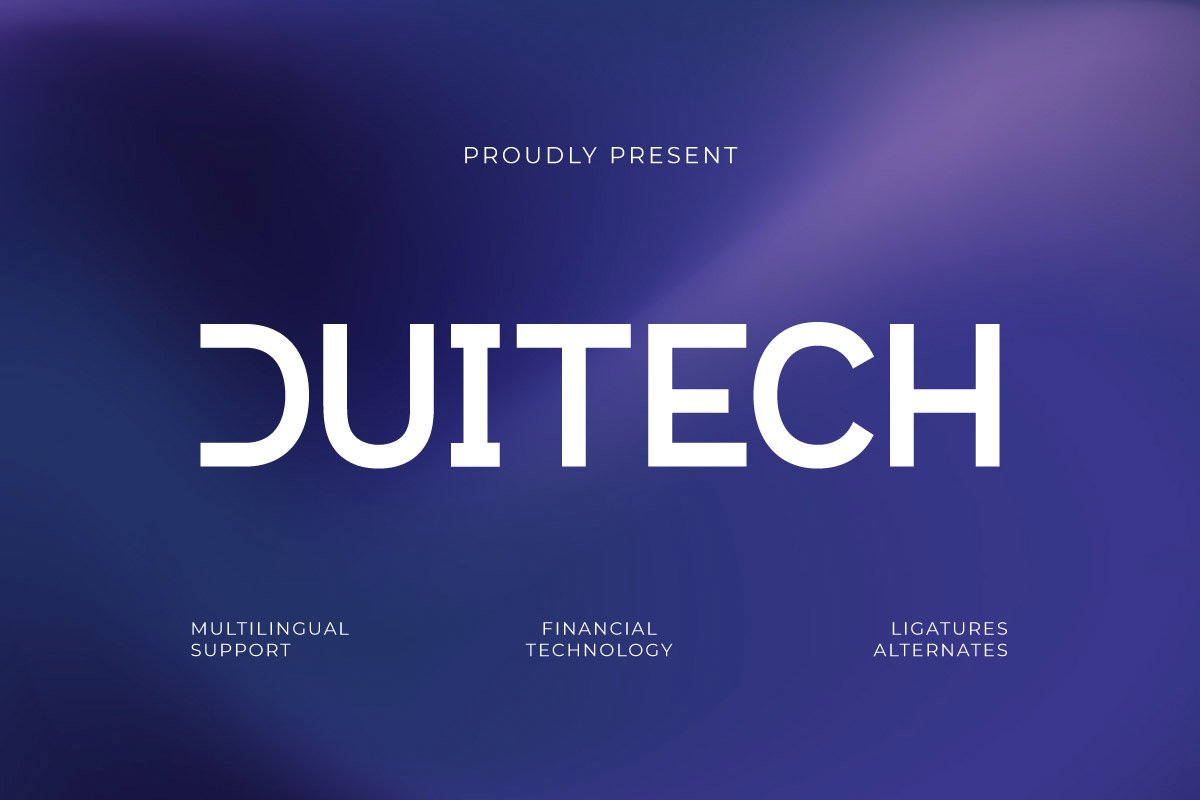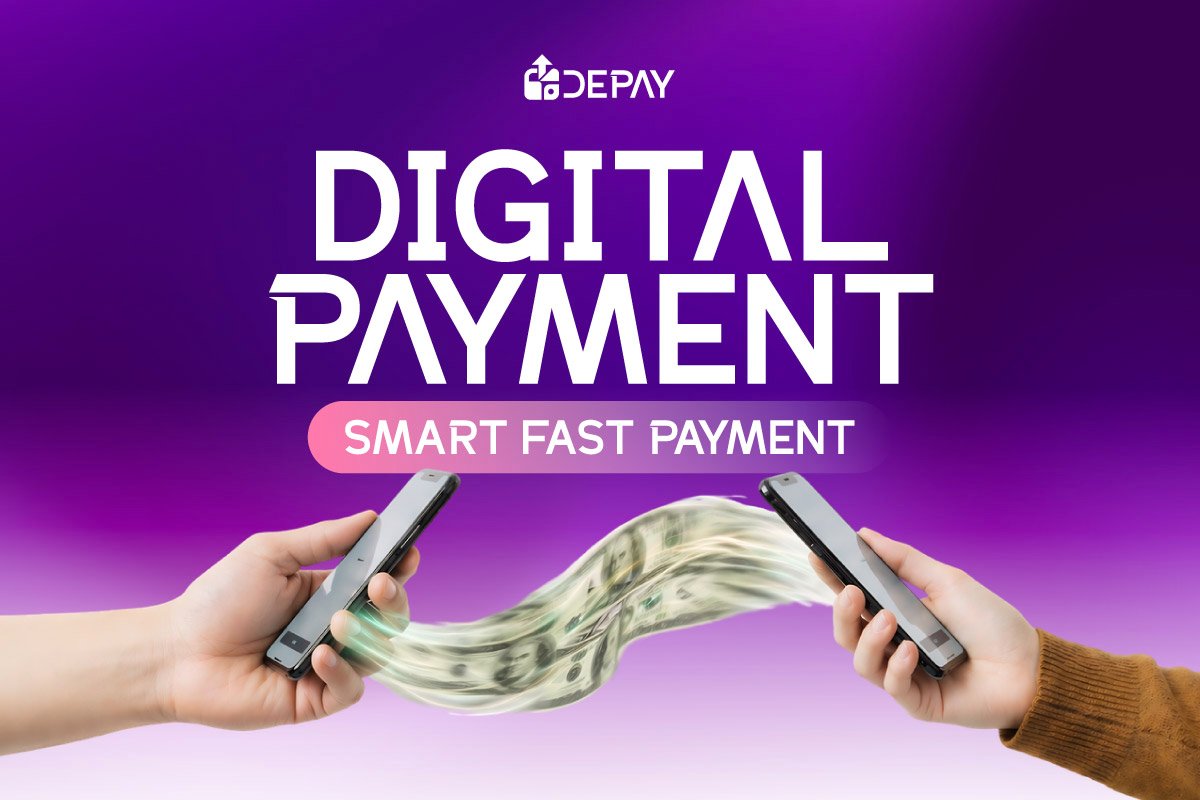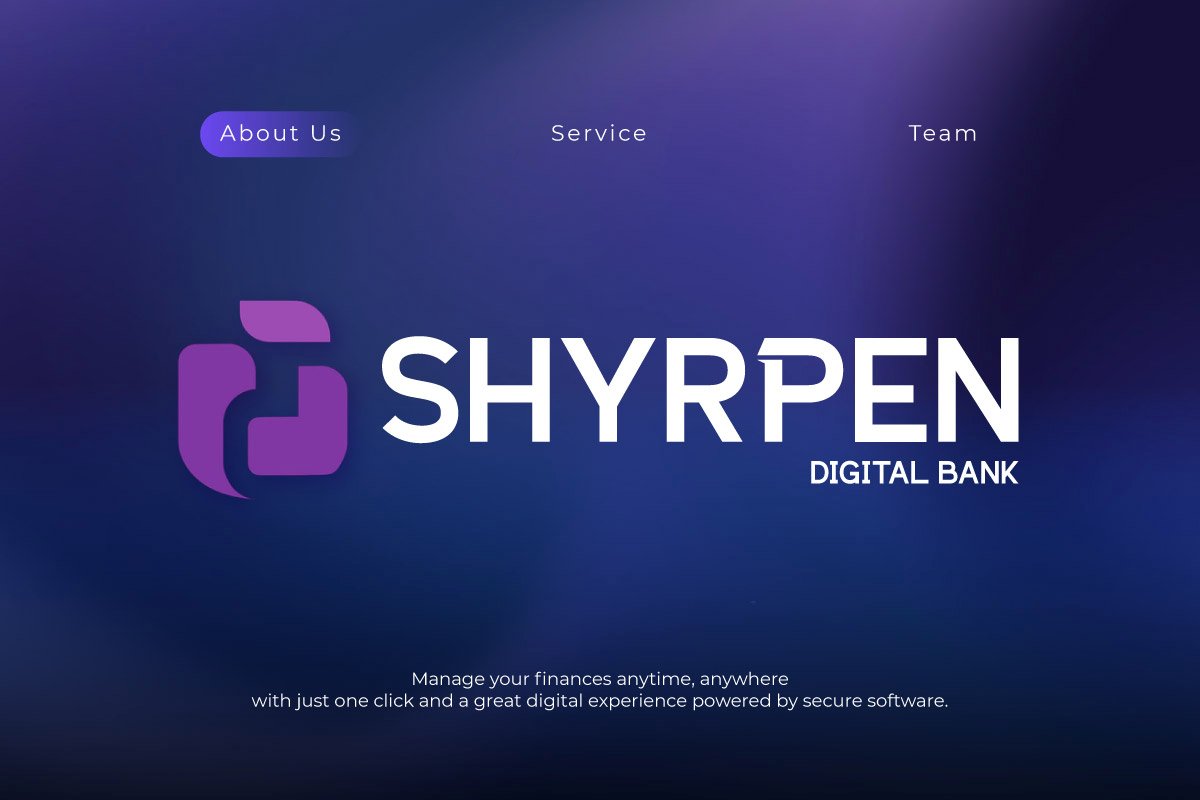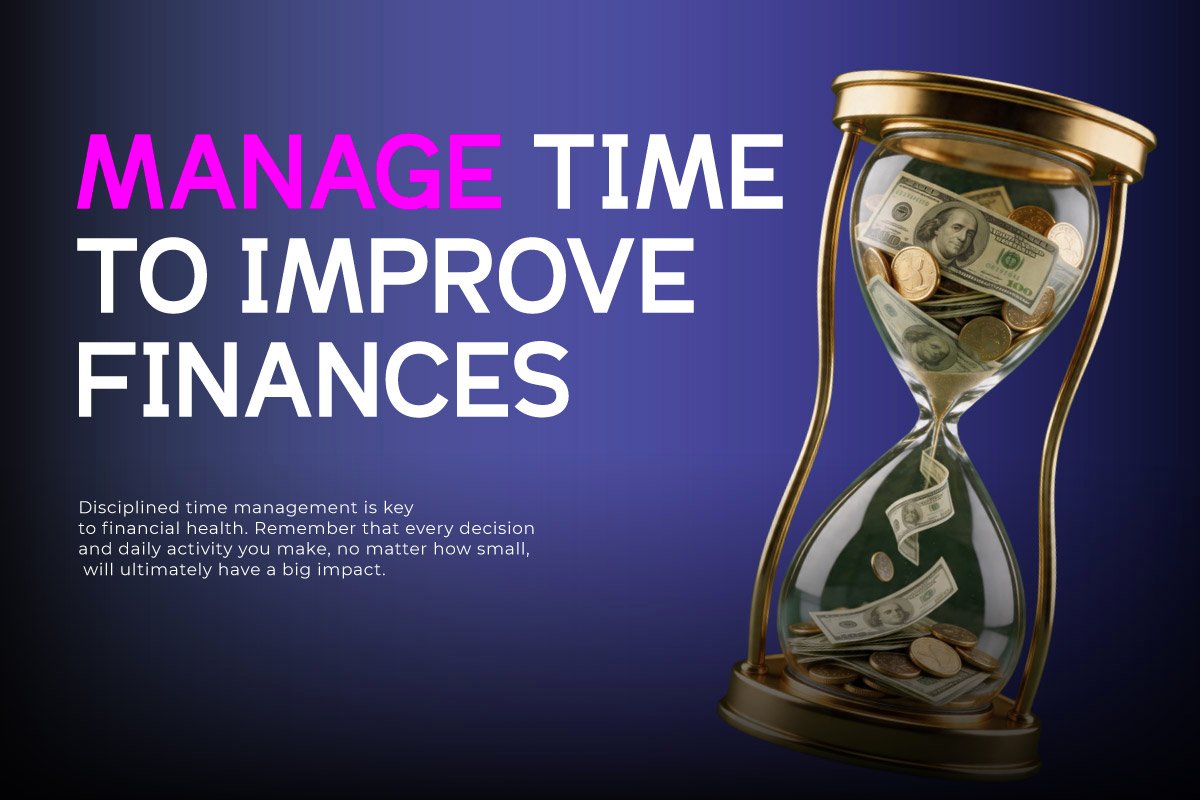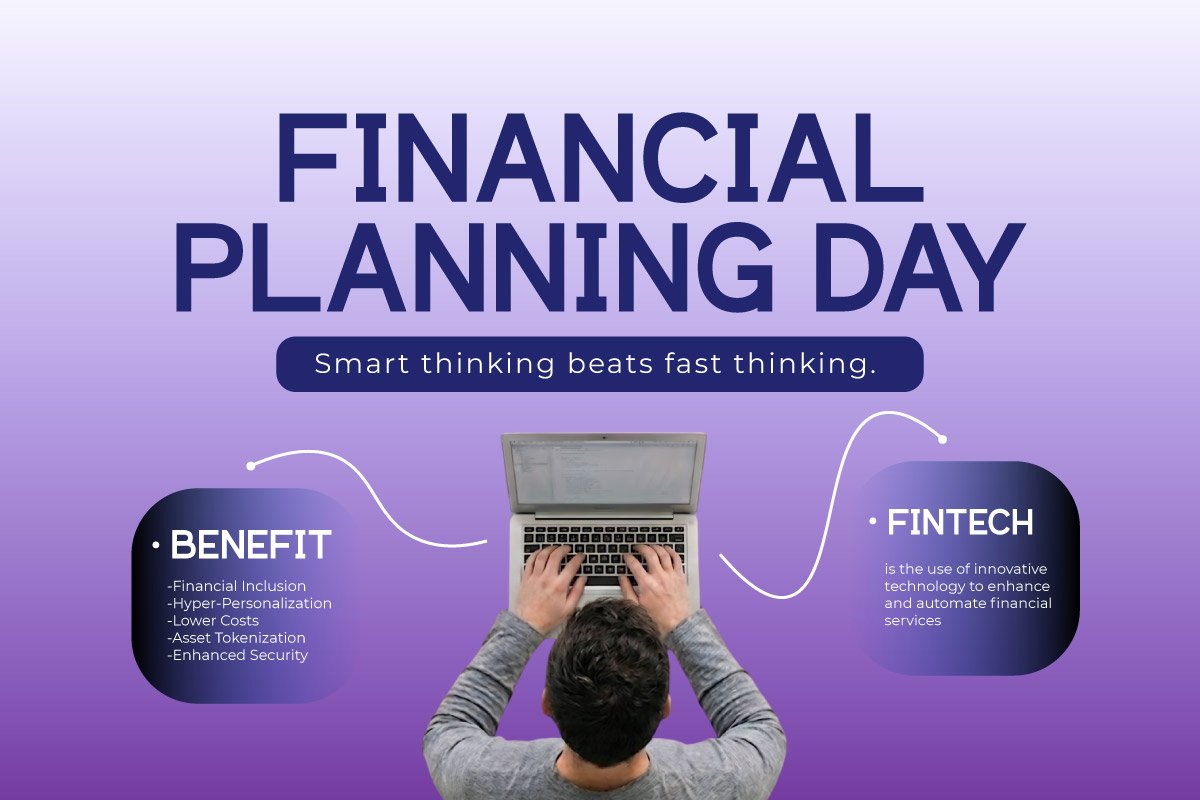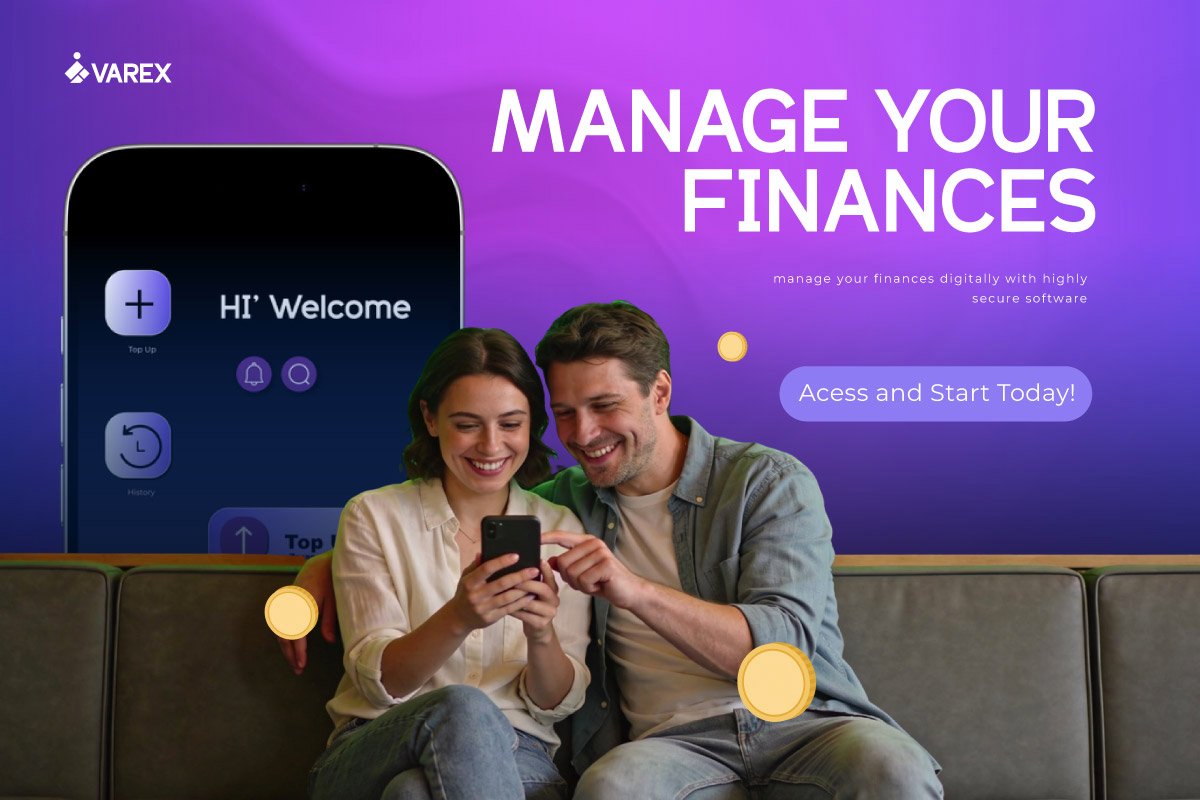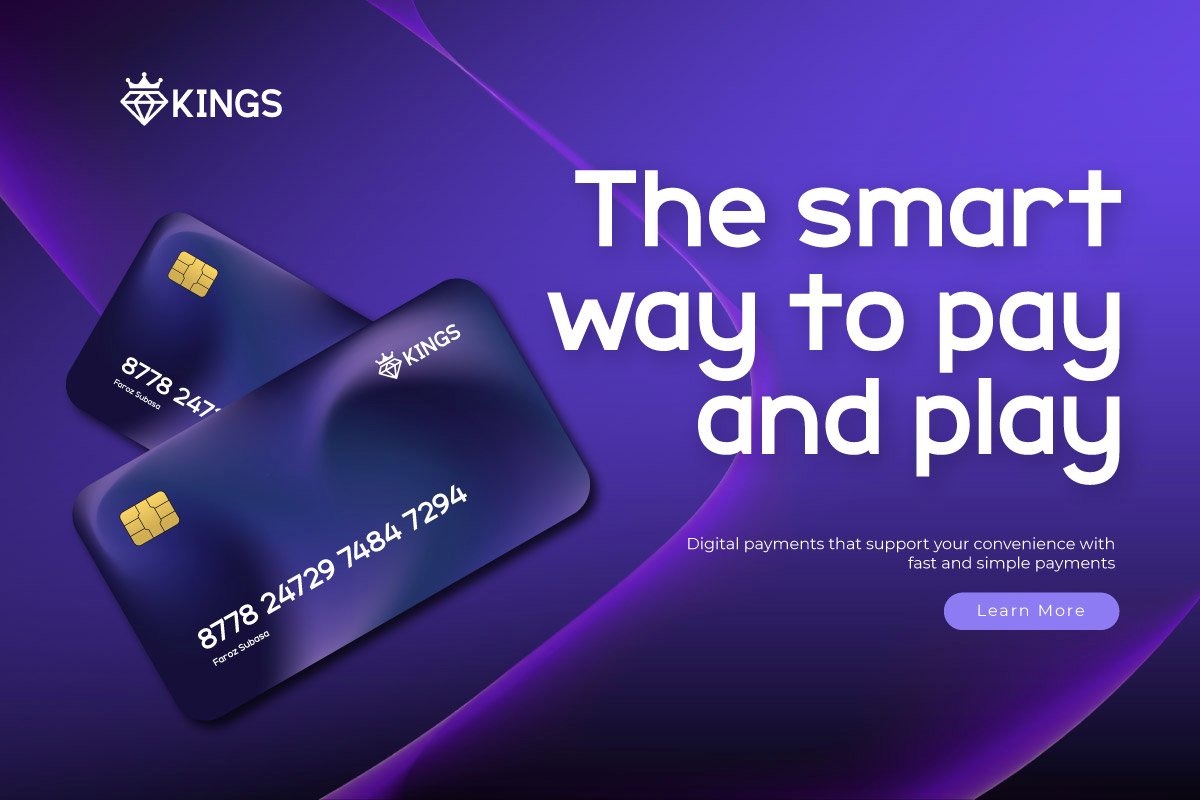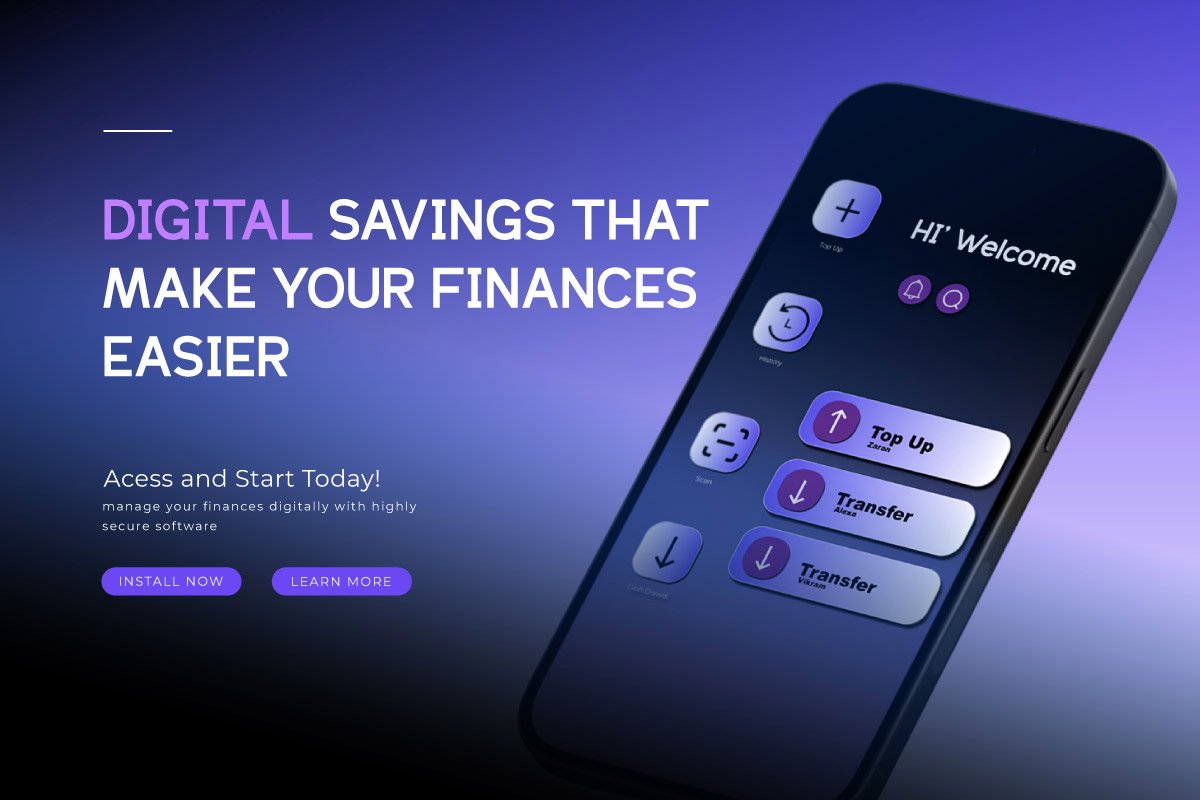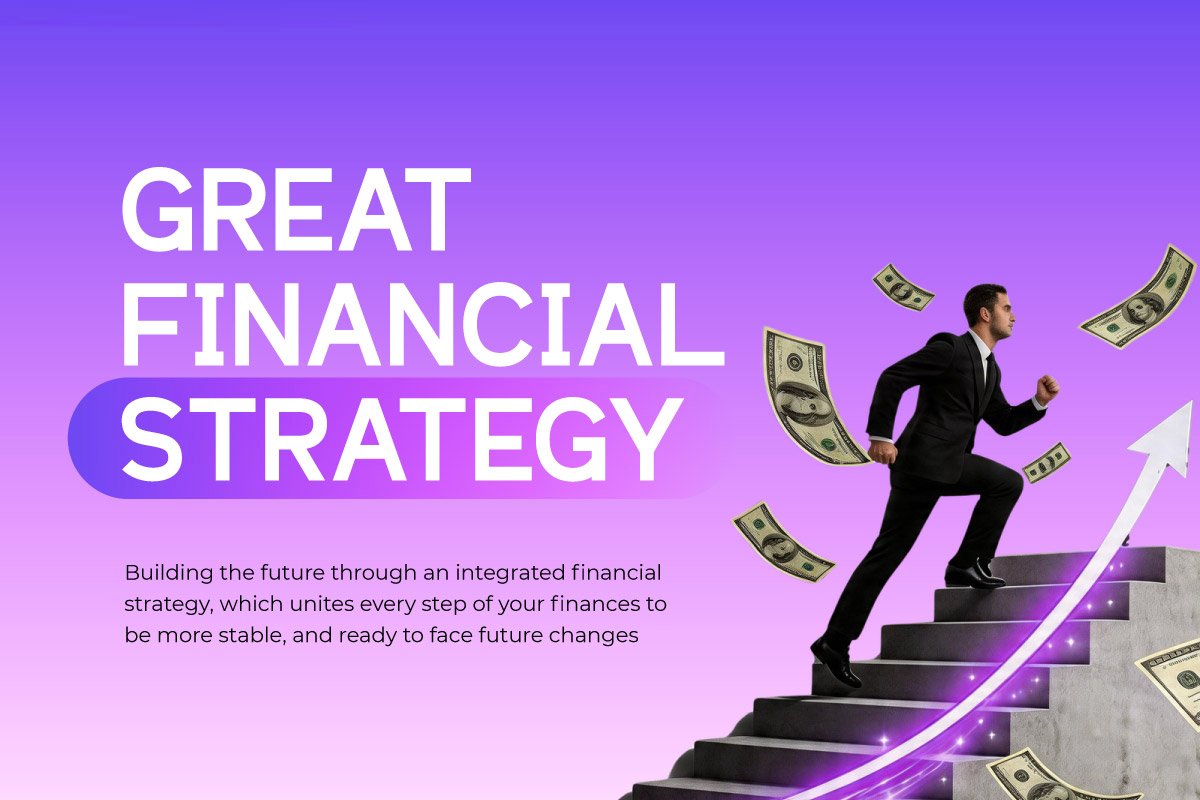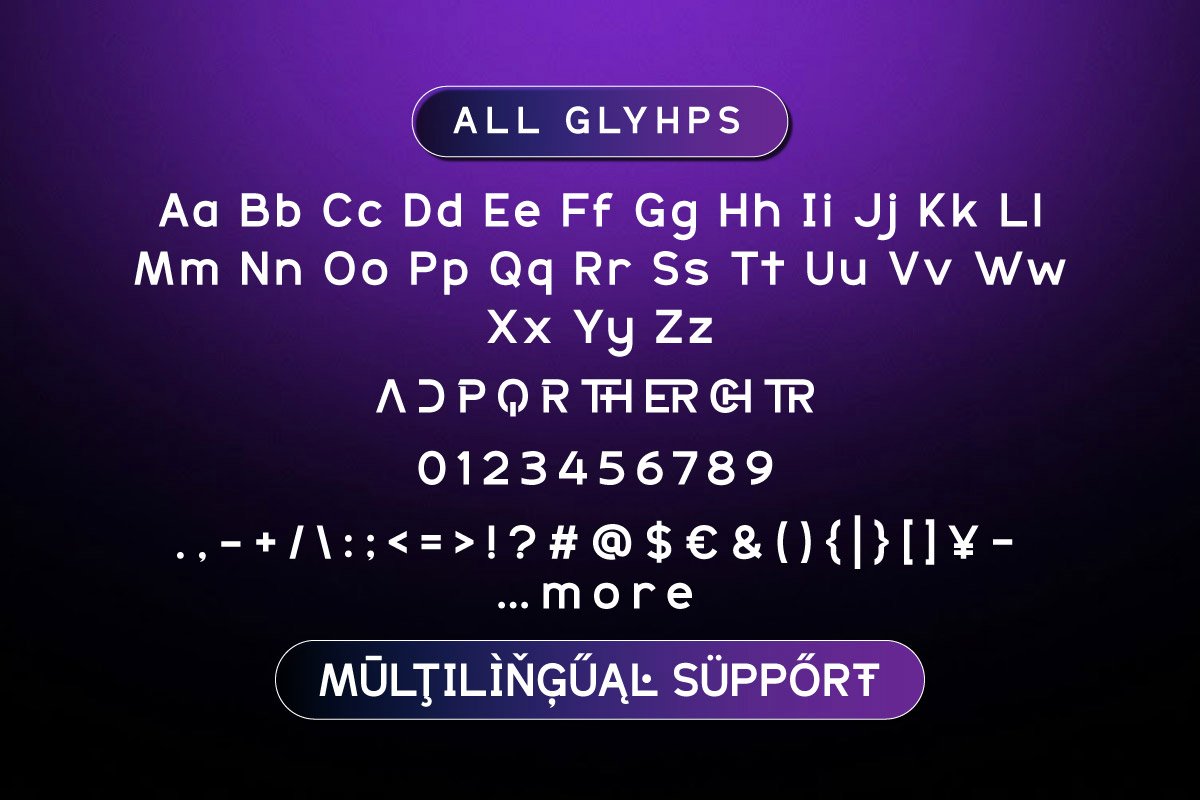
5. Duitech – Finance Technology
Duitech is a Modern Sans Serif typeface specifically designed for the visual needs of the Fintech and digital banking industries. Featuring clean, precise, and professional letterforms, this font delivers a premium and trustworthy impression. Its visual characteristics are ideal for building brand identities within a dynamic and technology-oriented Modern Financial Ecosystem.
The letter anatomy is optimized to support a perfect Seamless Transaction UI experience. Offering exceptional readability on digital devices, Duitech ensures that every balance figure, transaction detail, and financial dashboard navigation appears crystal clear. Its design structure helps create app interfaces that are efficient, neat, and provide users with a sense of security while managing financial data.
As a future-ready banking typography solution, Duitech features ligatures, alternates, and multilingual support for extensive design flexibility. This font is the perfect choice for corporate branding, crypto platforms, and digital banking identity systems that require a minimalist yet powerful aesthetic. Duitech helps designers achieve modern, stable, and innovative financial visual standards.